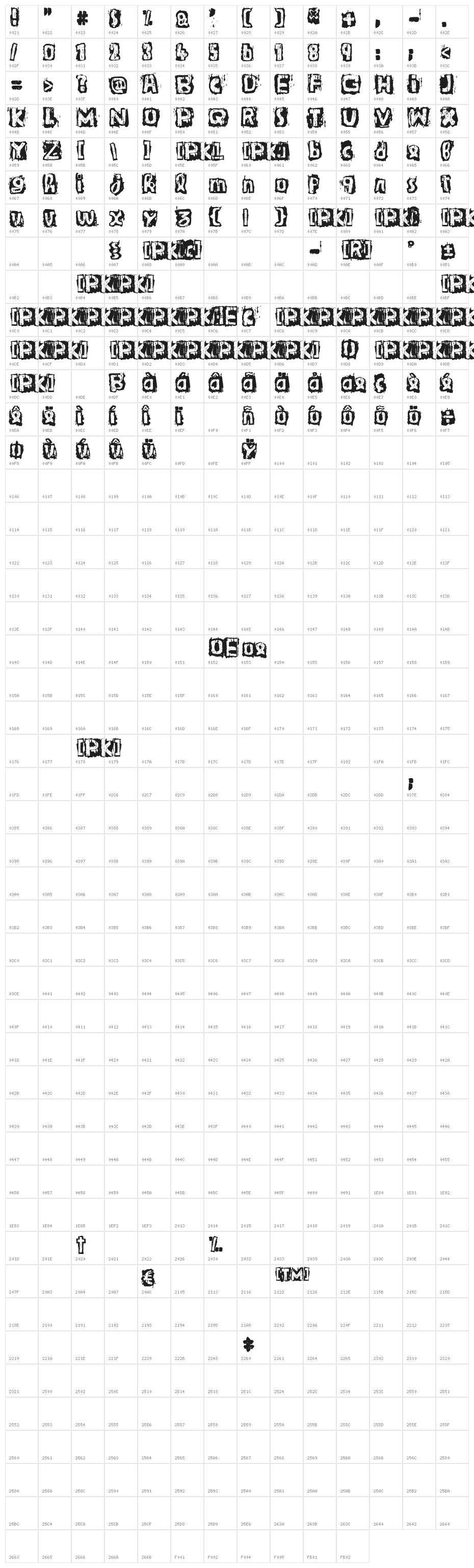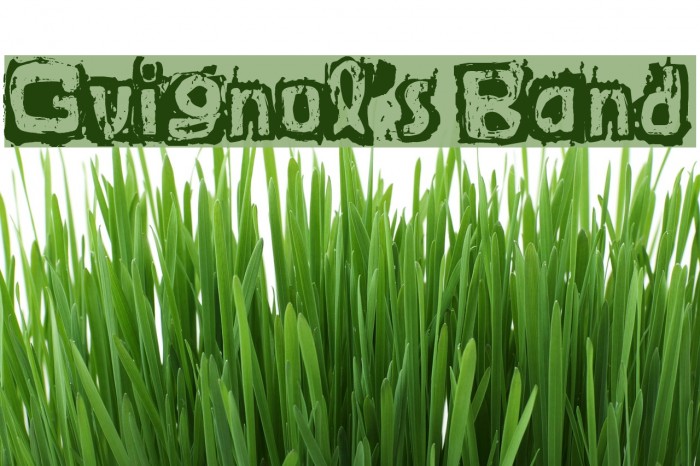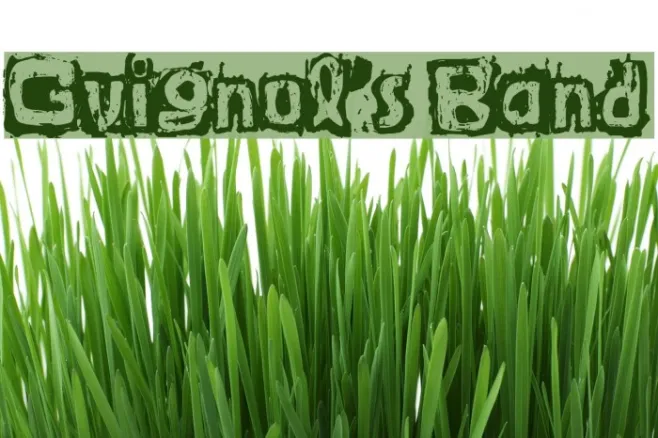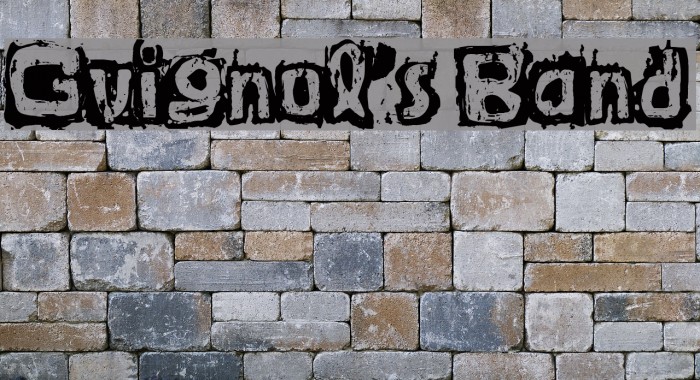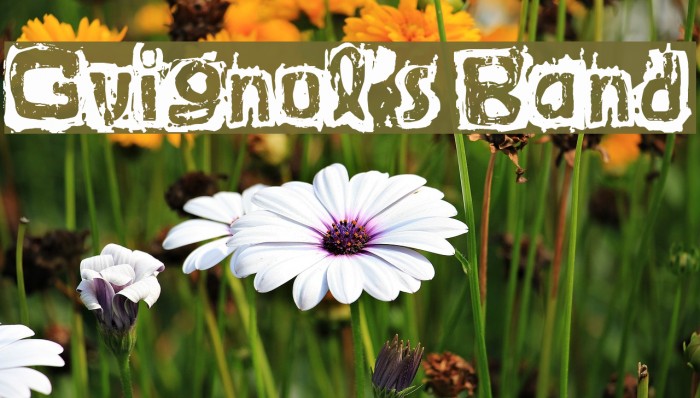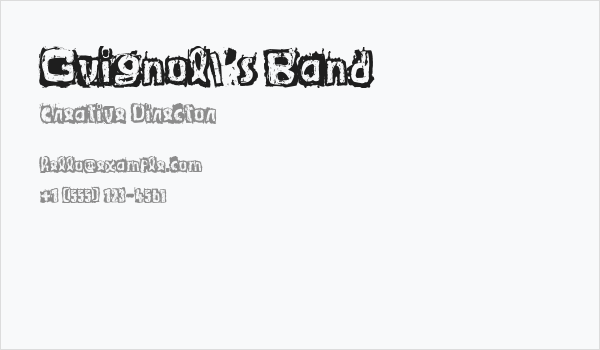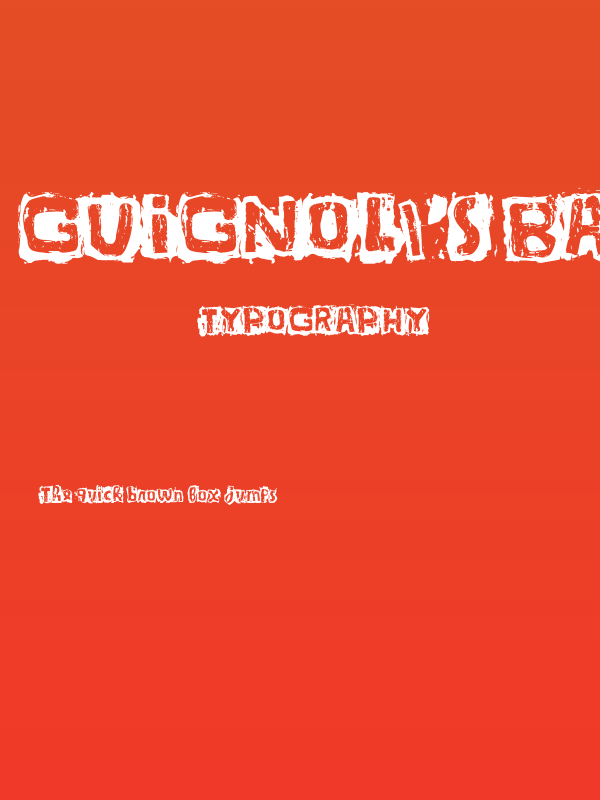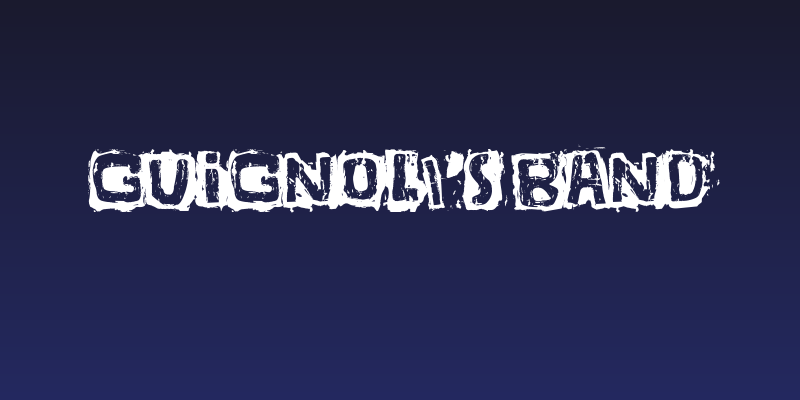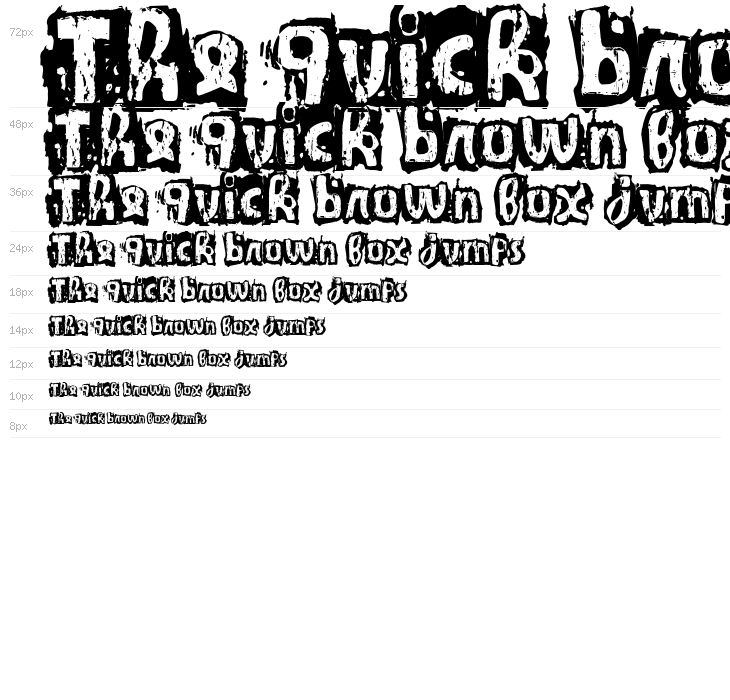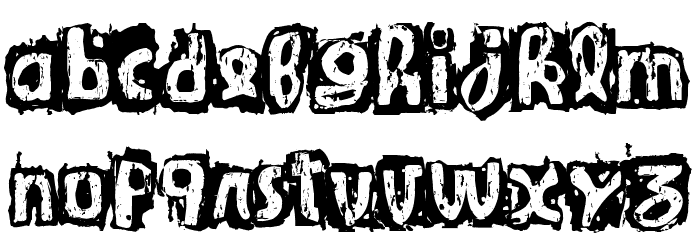
Guignol's Band Font
Guignol's Band Description
This font features a bold, distressed style with a grungy, textured appearance. The characters are heavily stylized, with rough edges and an uneven baseline, giving it a raw and edgy look. The uppercase and lowercase letters maintain a consistent design, with a playful yet chaotic feel. Numbers and special characters follow the same distressed aesthetic, making the font suitable for projects that require a strong, rebellious statement. The overall design is eye-catching and perfect for creating a dramatic impact.
| Overall Style | Grunge, Edgy, Distressed |
| Proposed Projects | Ideal for music album covers, posters, streetwear branding, and edgy graphic designs. |